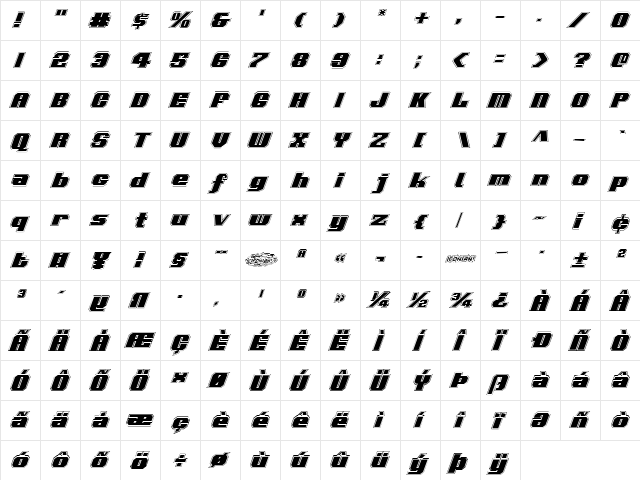
Voortrekker Pro Italic Italic
Design Context for Voortrekker Pro Italic Typeface
Voortrekker Pro Italic is a composed and adaptable typeface that performs quietly and consistently across a wide range of design contexts. The dynamic lean of this cut emphasises speed and emphasis in any layout.
Pro Tip: Use Voortrekker Pro Italic for emphasis, pull quotes, and subheadings where its slanted energy can add rhythm to the layout.